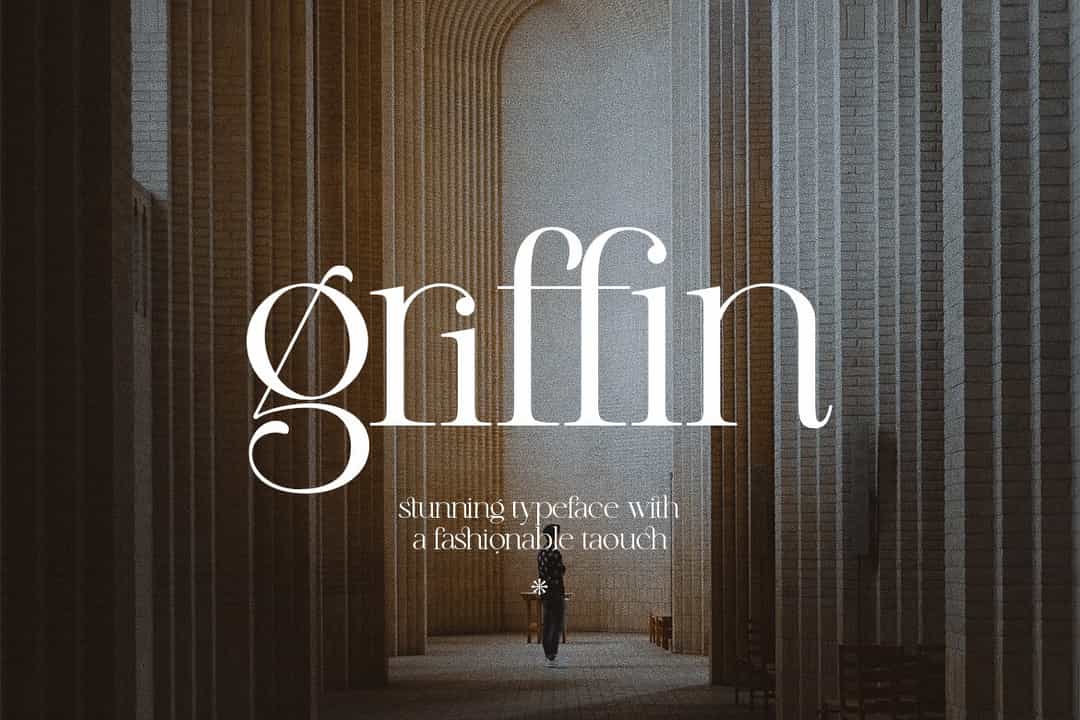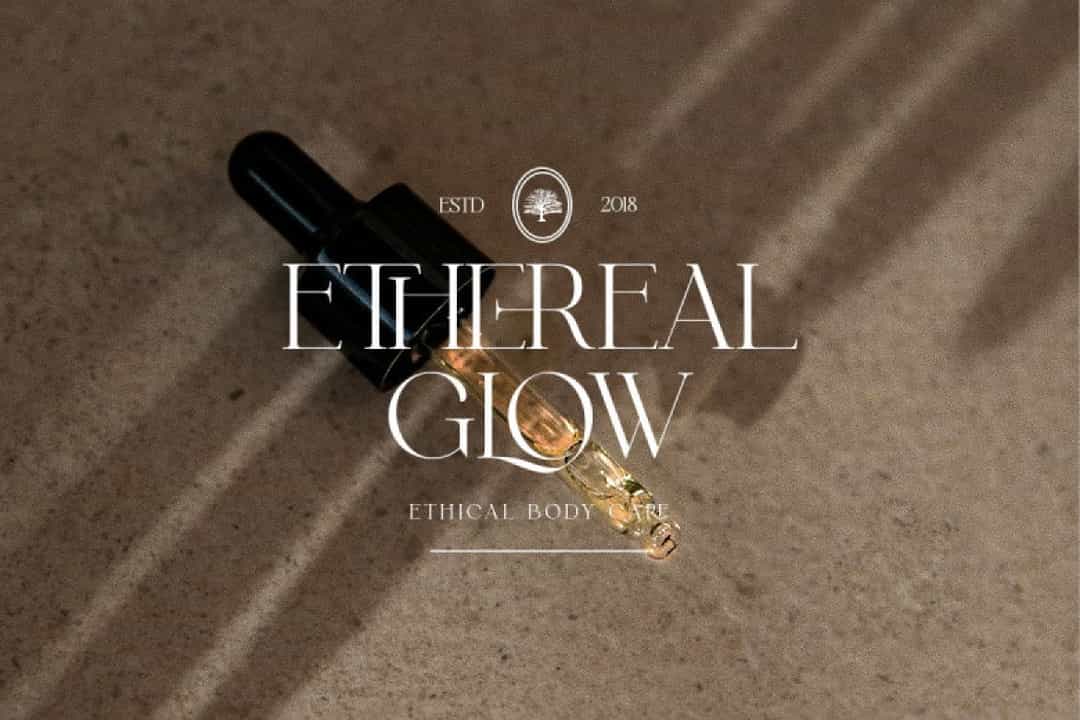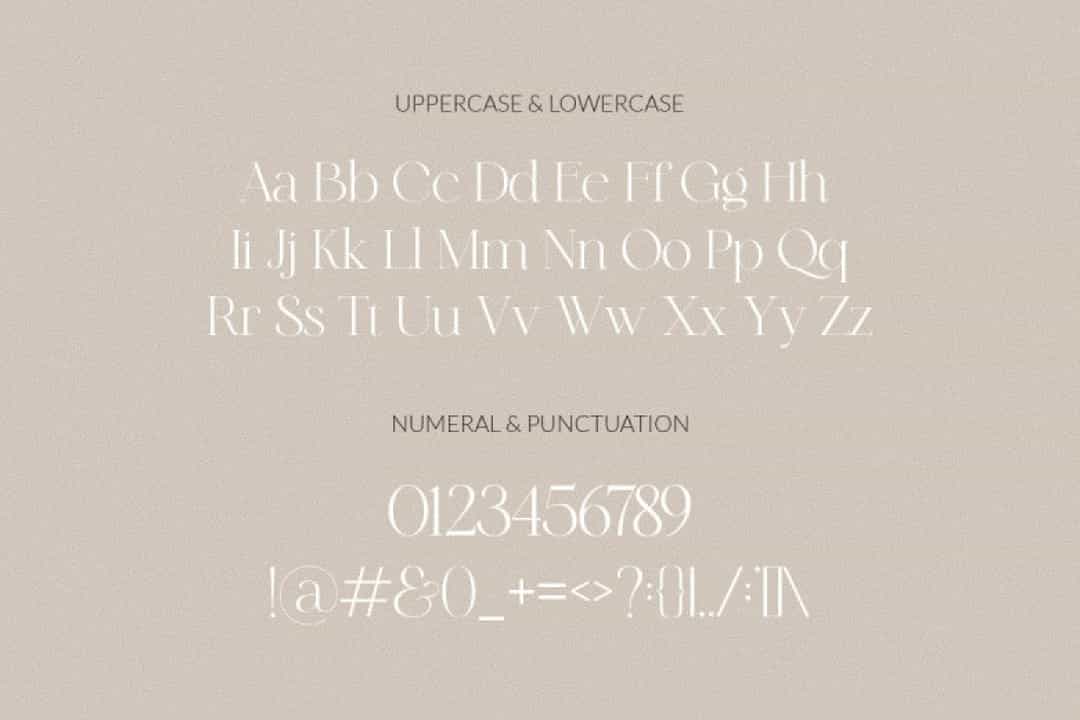
Griffin is an elegant yet modern serif font with striking contrast that’s ideal for fashion-related projects such as logos, magazines and titles. This font was specially created to bring contemporary sophistication to designs related to fashion – perfect for creating trendy logos, magazines or titles for magazines!